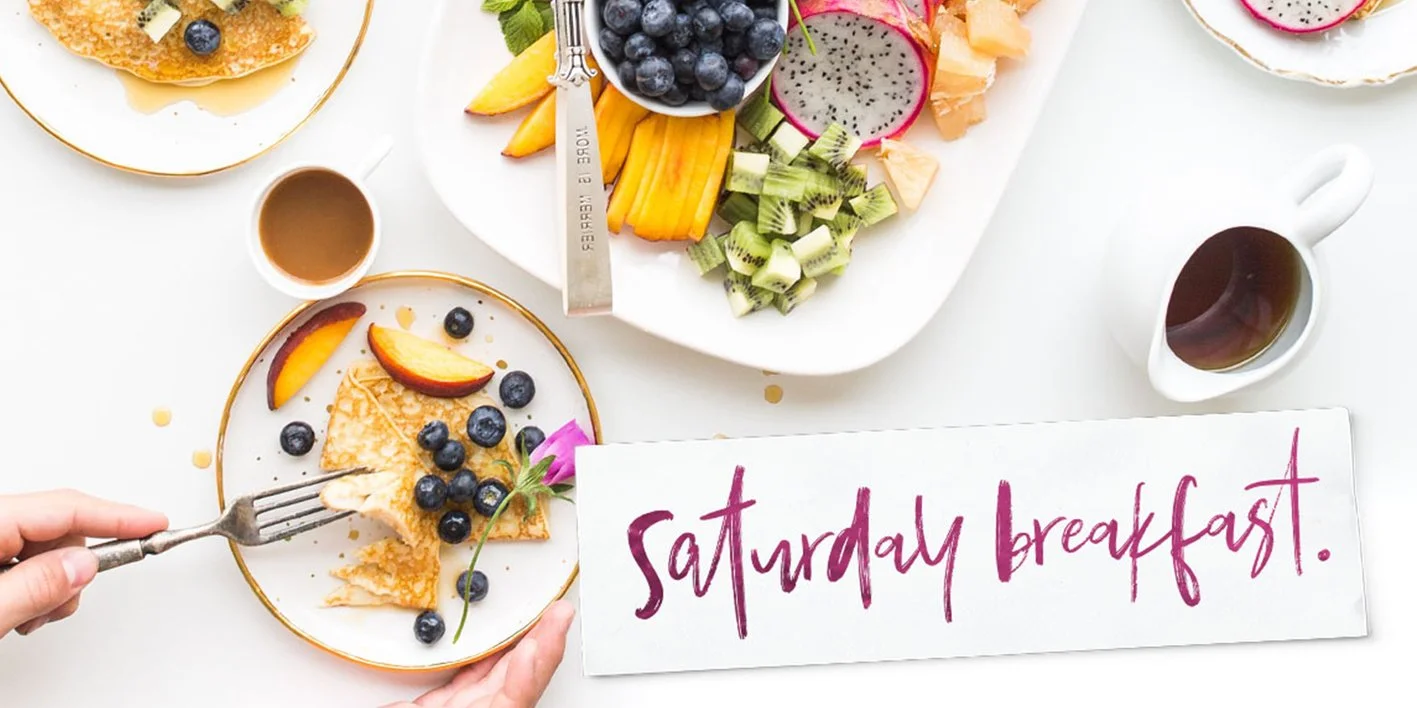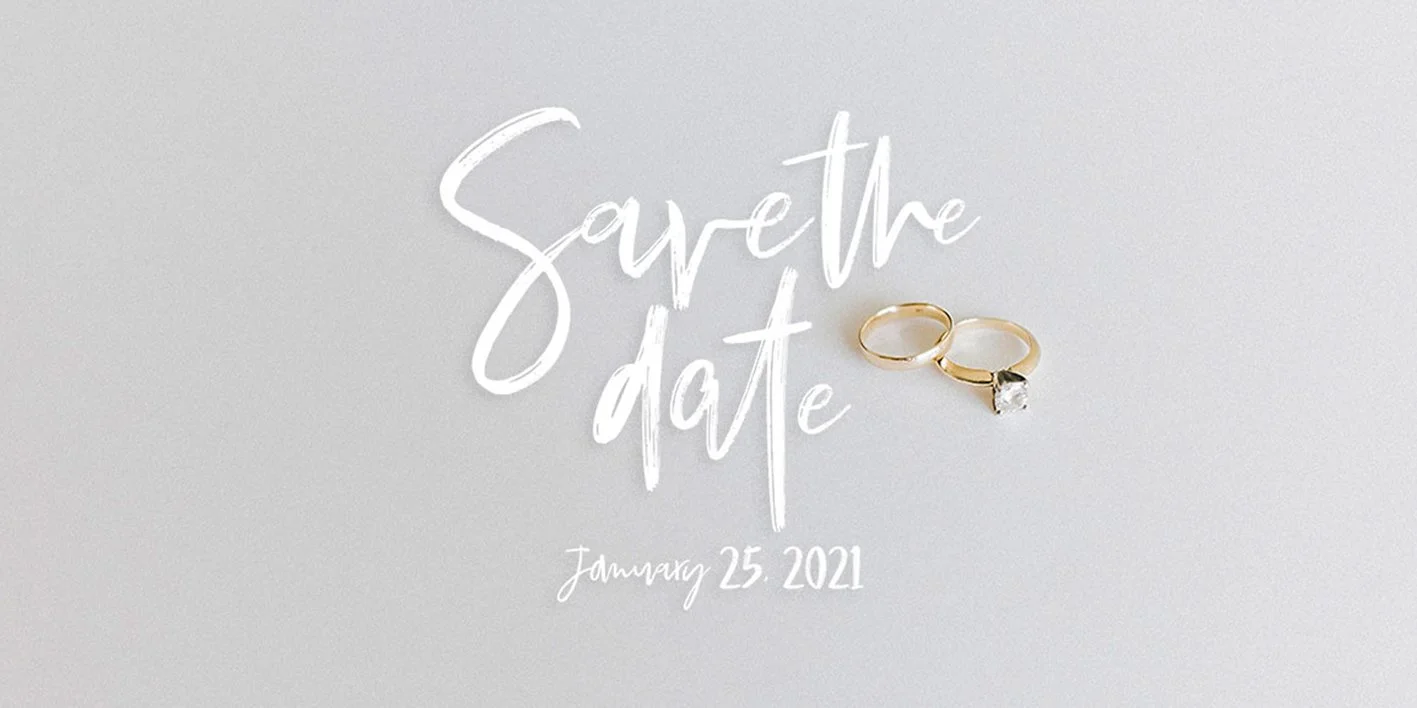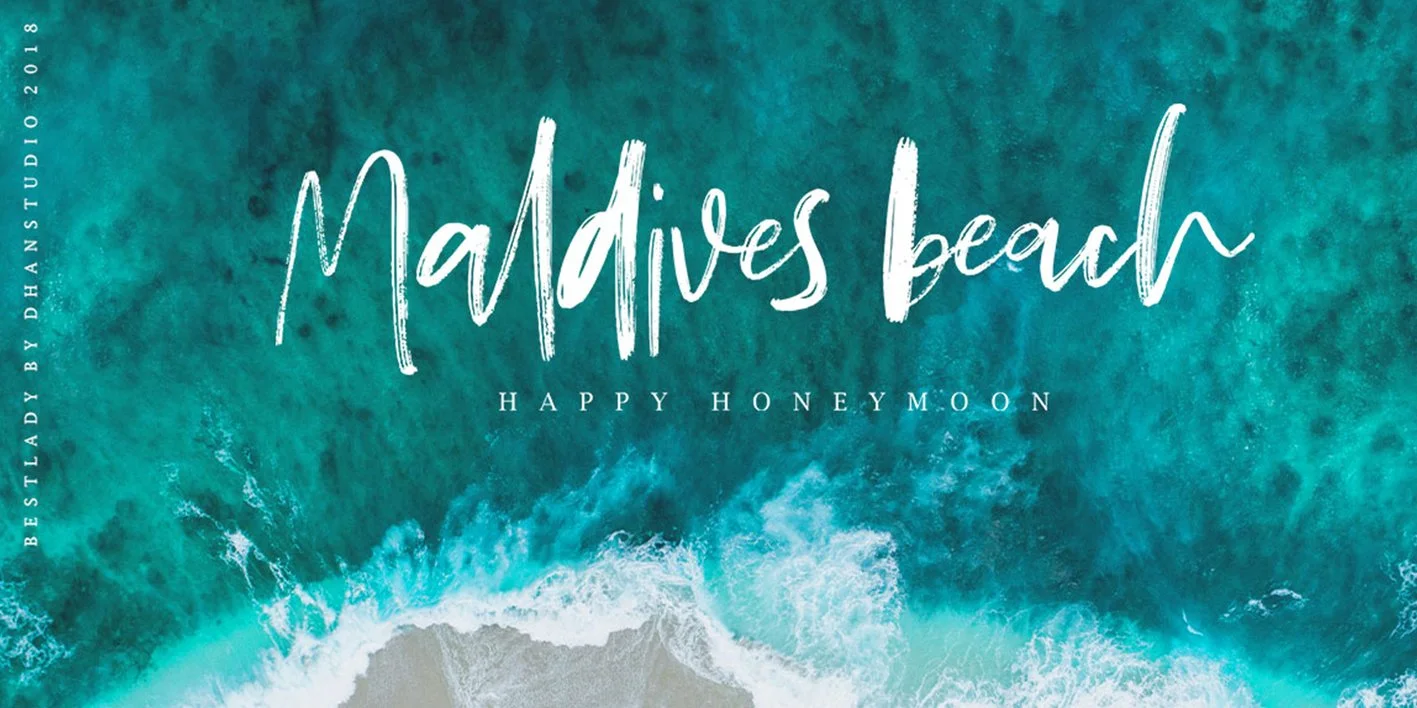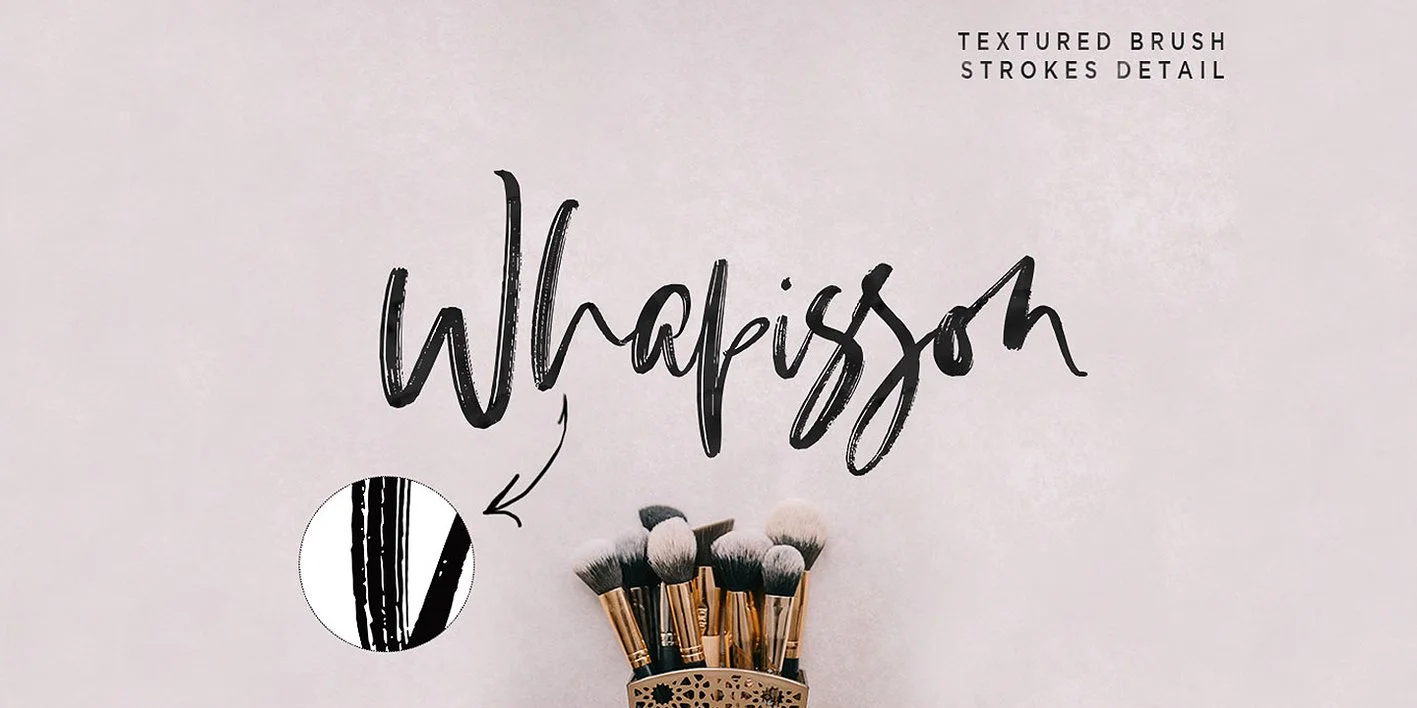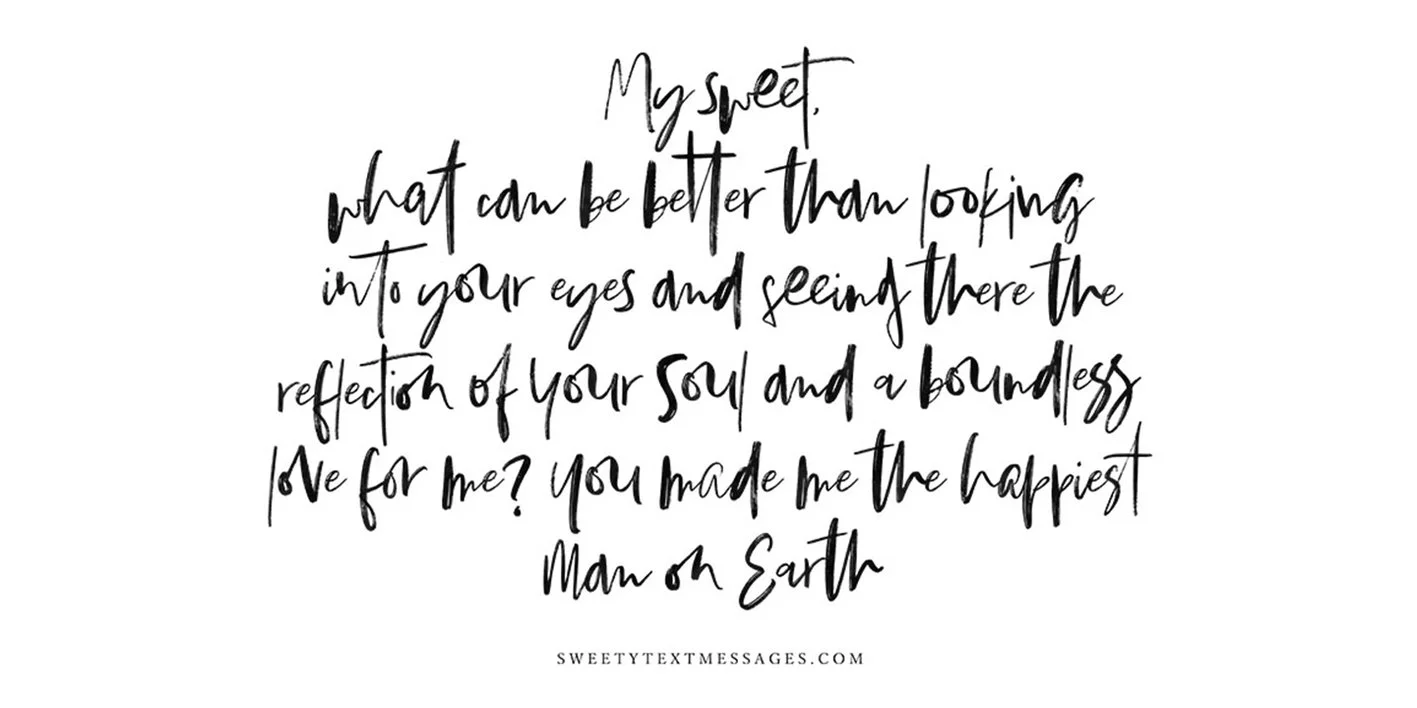
Bestlady Font
A good typeface communicates tone before a single word is read. Bestlady achieves this through optical balance across all weights. The typeface brings a versatile sensibility to a broad range of creative disciplines, with refined proportions and careful stroke modulation that holds up whether the work is print-first or screen-first.
In practice, Bestlady proves particularly effective for editorial layouts, environmental graphics, annual reports, poster creation, logo design. Designers reaching for it find that the type decisions feel resolved rather than laboured — a useful quality when client timelines are tight.
The range of applications extends to signage systems, social media graphics, web design, product labels. That breadth is deliberate: the proportions and spacing were stress-tested across a wide range of mock briefs before the typeface was finalised.
Brand strategists building visual languages find Bestlady a reliable choice for projects that demand both personality and restraint. The design avoids the self-conscious quirkiness that dates quickly, settling instead for considered distinctiveness that holds up over time.